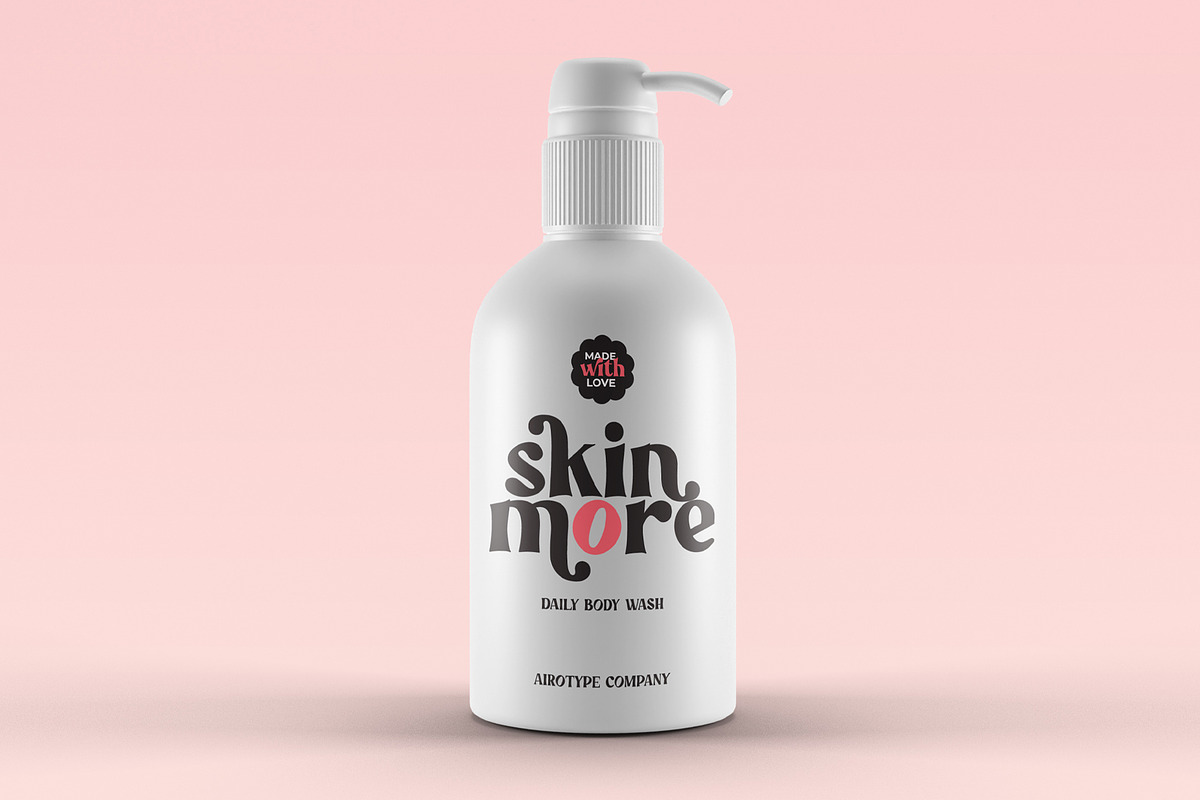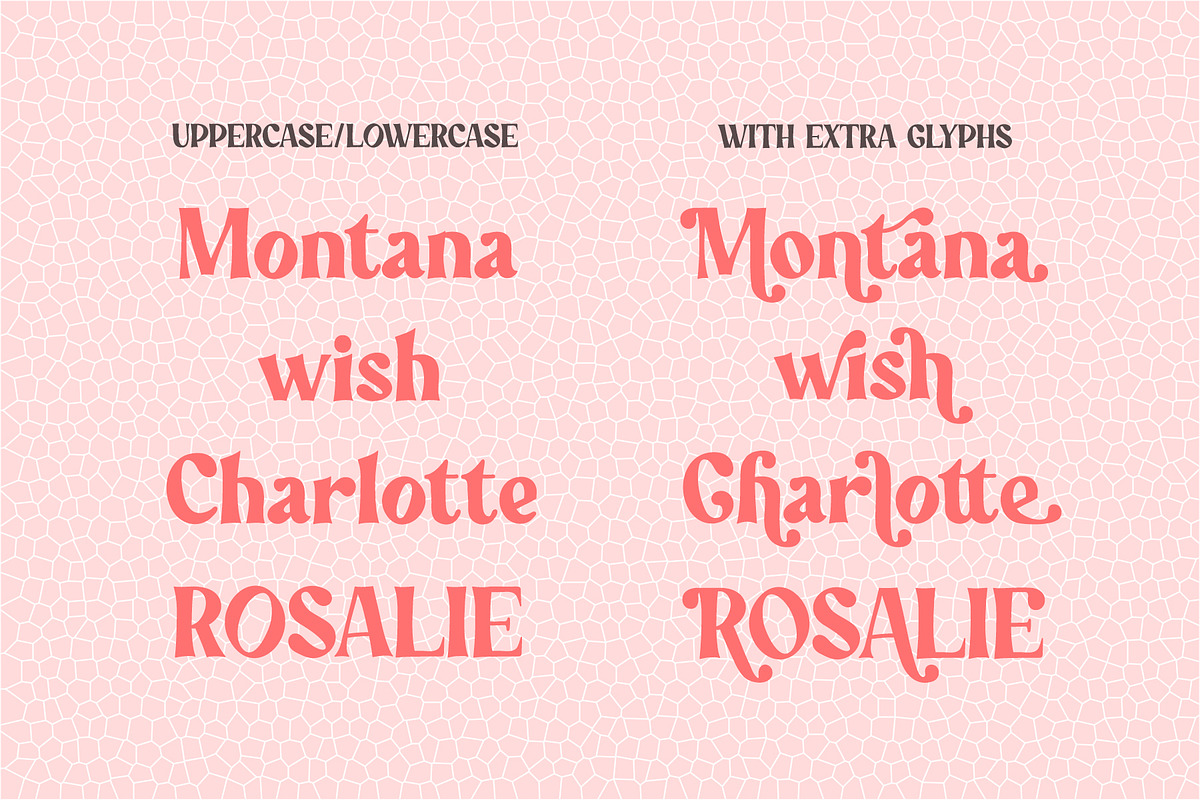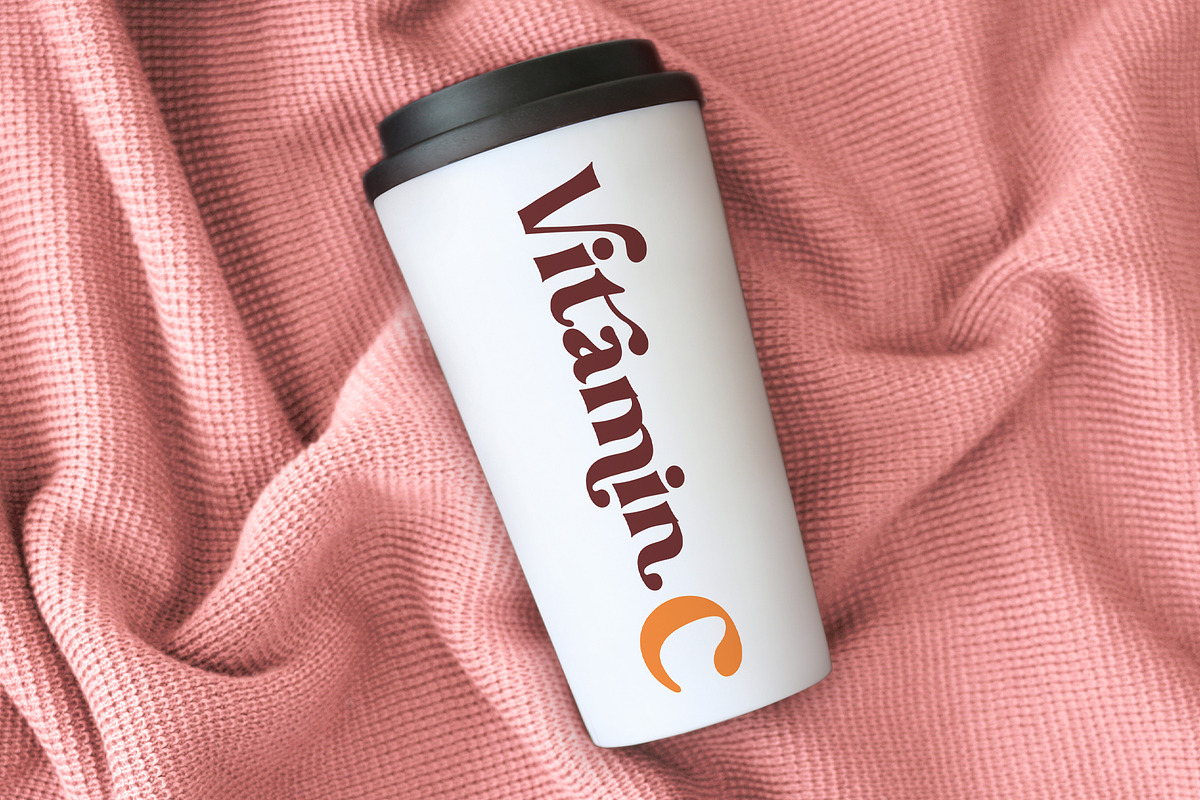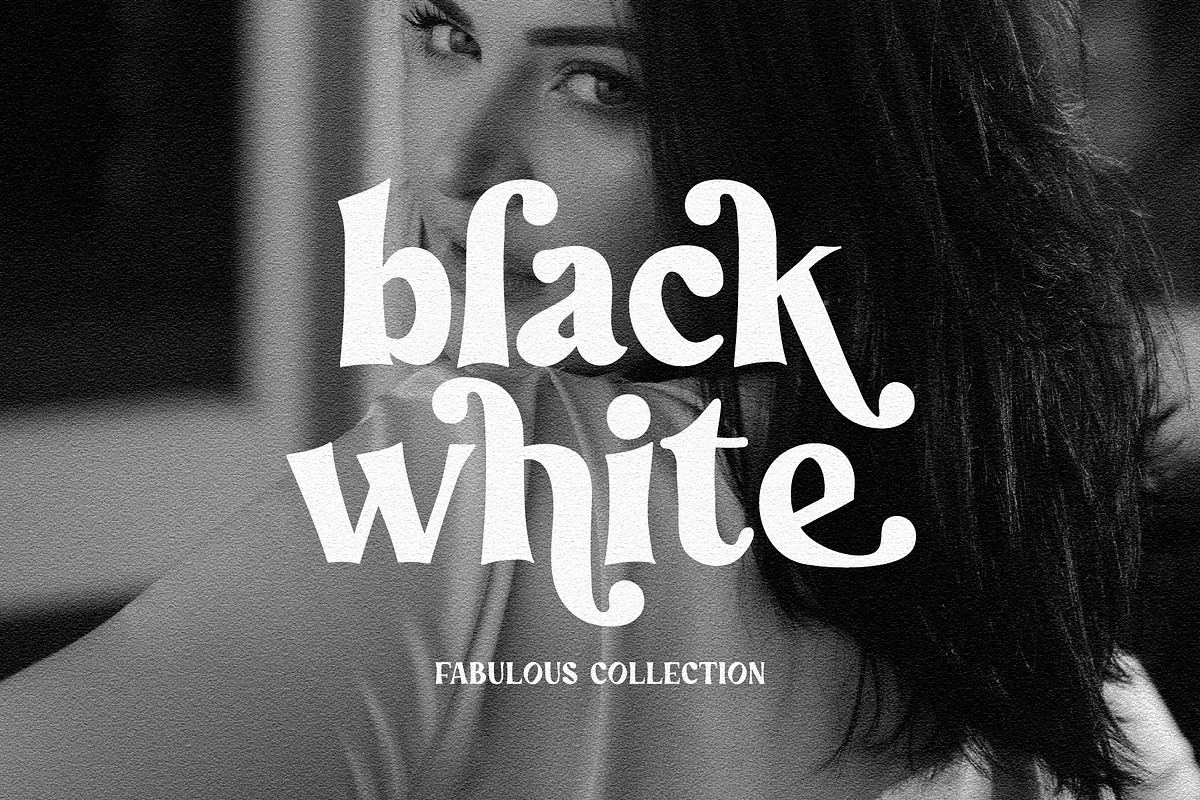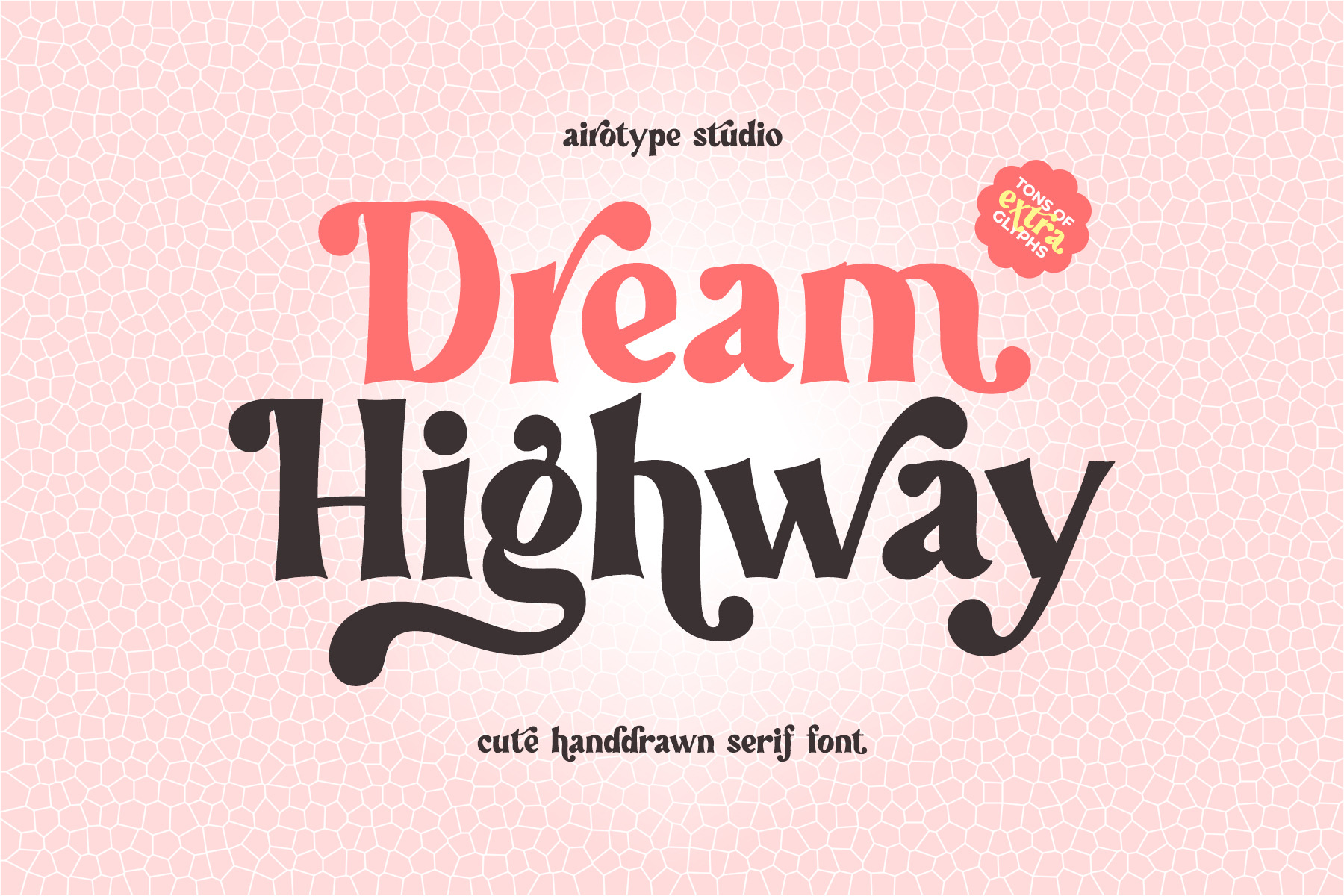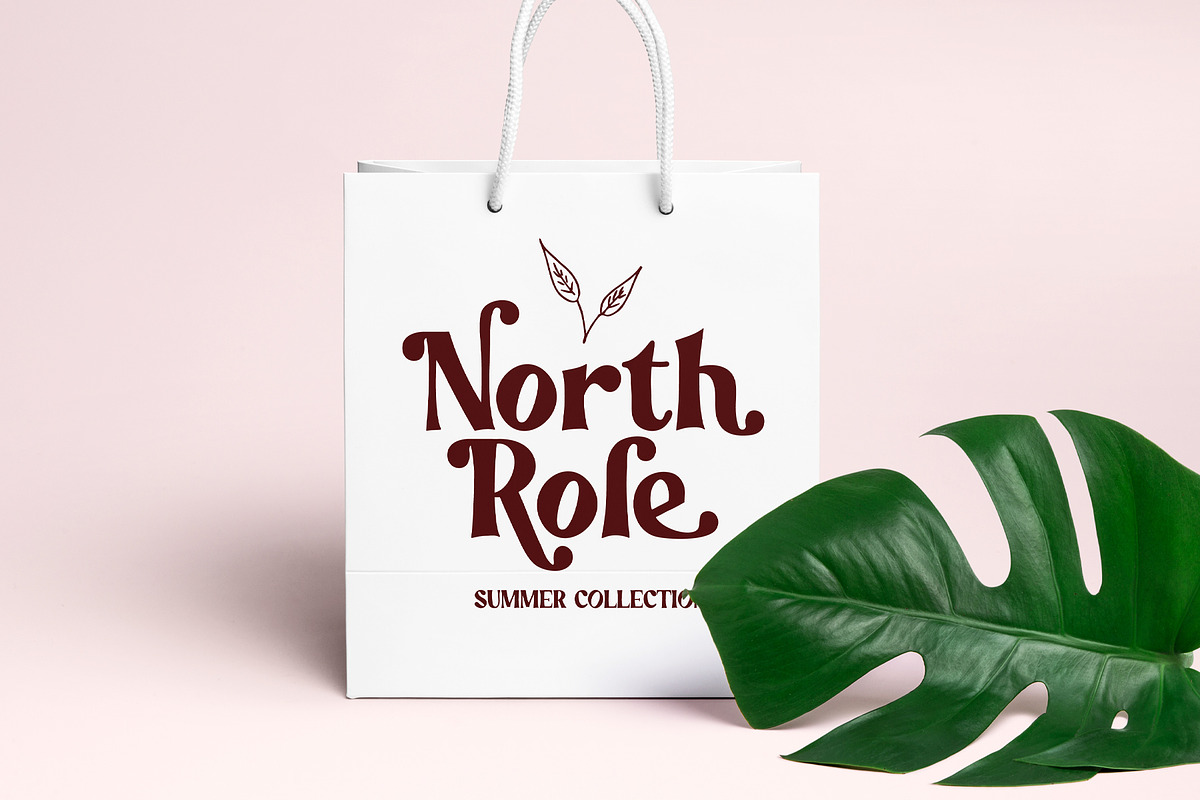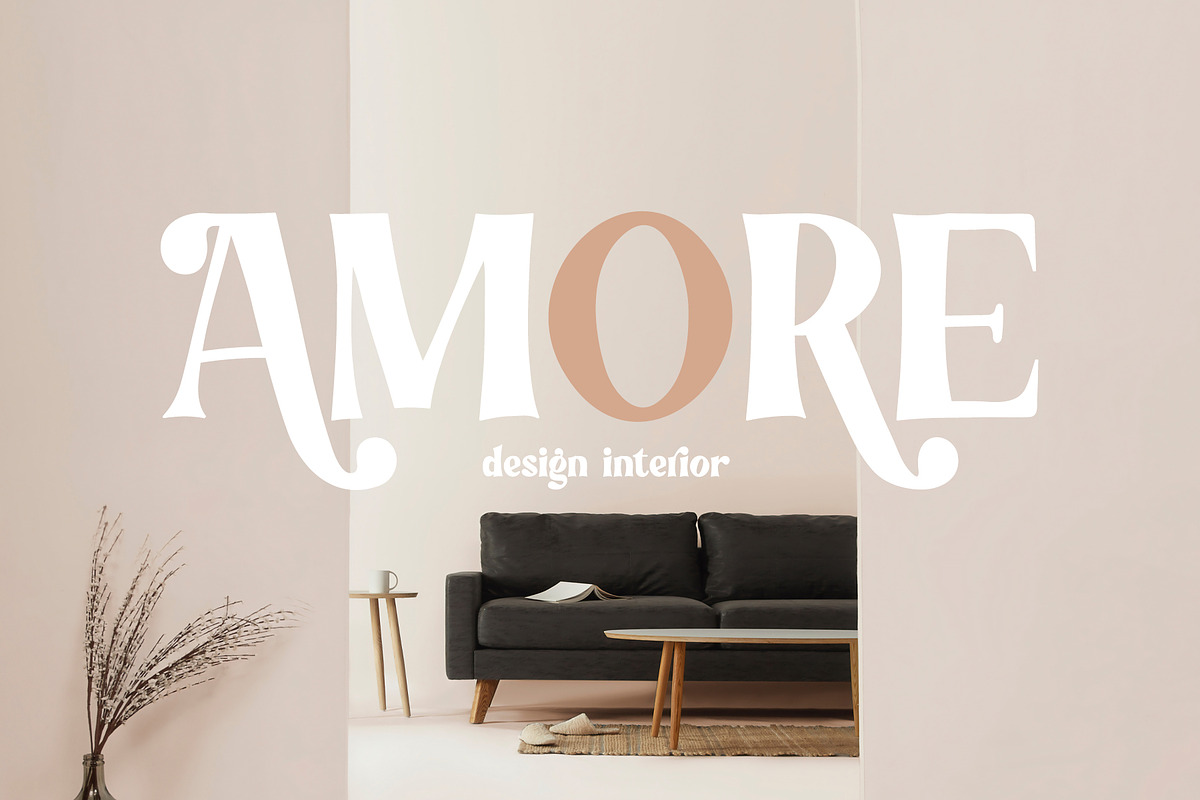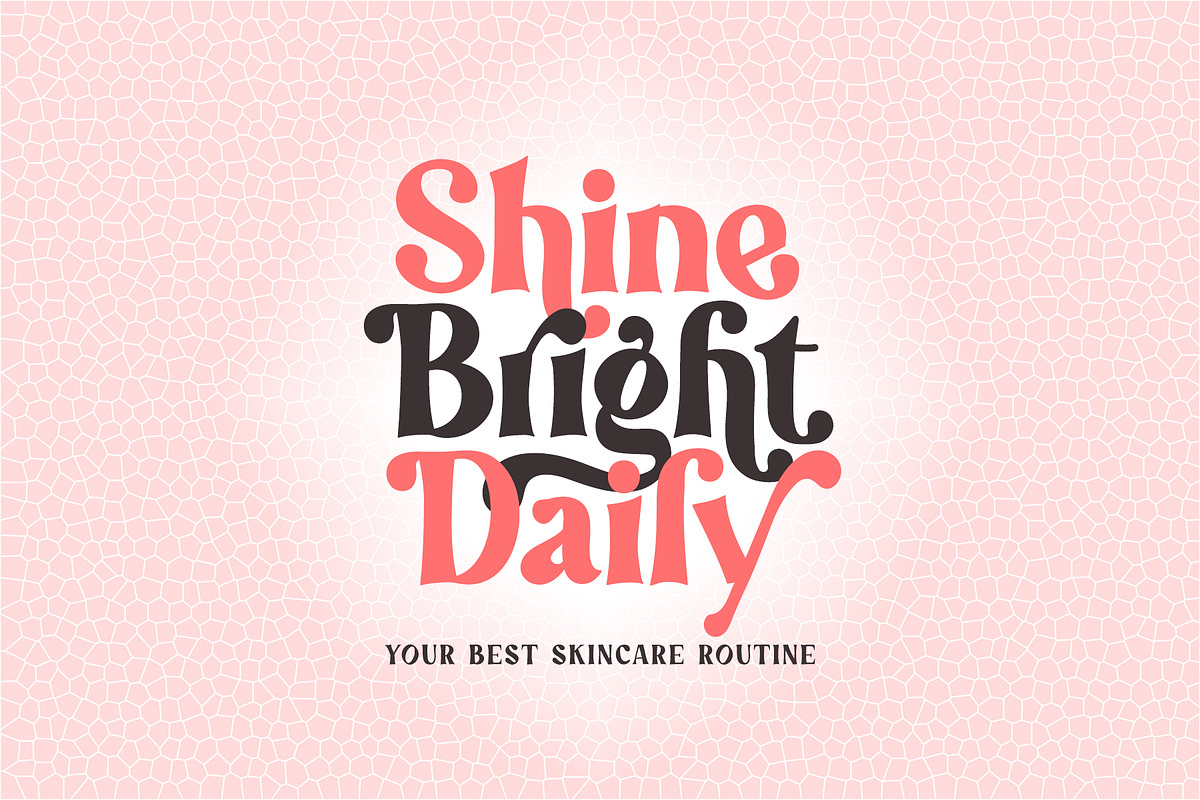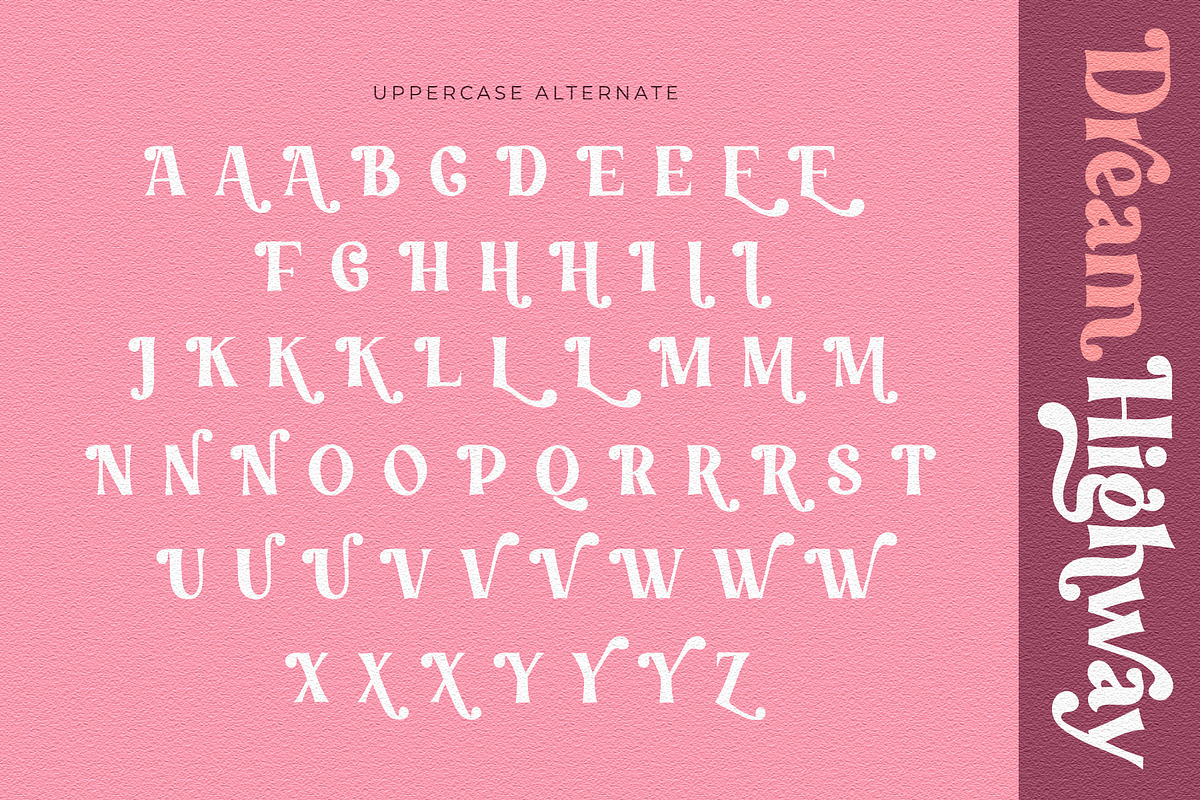
Dream Highway - Cute Serif Font
Dream Highway is cute modern serif with modern and retro vibes. This is not so elegant serif, but more to playful serif.
Dream Highway has extra glyphs to give more options for crafters in designing. Swirly alternate characters will make it look more fancy and more attractive.
Dream Highway is perfect font for any projects, for modern or even retro vintage design, branding, logo, crafting, sticker, quotes, sublimation, wedding invitation, and many more.